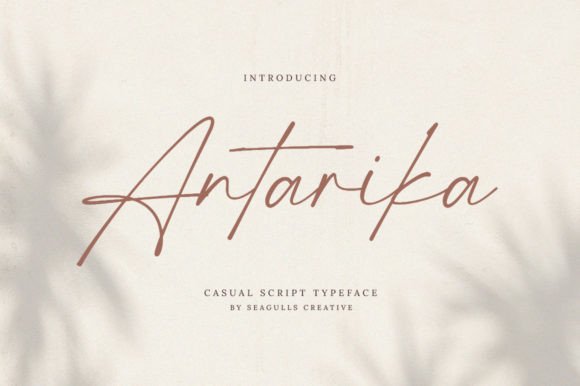
Dive into the world of allure and sophistication with Antarika Font, a captivating script typeface that dances across your designs with a captivating rhythm of smooth curves, elegant strokes, and a striking interplay of thick and thin lines. Step into the spotlight and unveil your creative vision with this font, an exquisite gem waiting to be discovered.
Picture your brand adorned with the unmistakable charm of Antarika Font. Its flowing lines whisper stories of timeless elegance, drawing the eyes and captivating hearts. Whether you're crafting signature logos, building a cohesive brand identity, adding a touch of exclusivity to your watermark, or capturing the essence of love in wedding invitations, Antarika Font stands as your steadfast companion.
Within the realm of studio photography, Antarika Font transforms ordinary images into breathtaking works of art. Its flowing strokes embrace the curves and contours of your subjects, highlighting their beauty and drawing the viewer into their captivating gaze. Unleash your creativity and watch as your photographs take on a new dimension of artistry and emotion.
With Antarika Font as your ally, advertisements and product designs become more than mere promotions; they transform into captivating narratives that allure and engage audiences. Each letter dances across the screen or packaging, inviting customers to embark on an unforgettable journey. Let your products speak volumes with the enchanting voice of Antarika Font.
Embrace the power of social media and let Antarika Font elevate your posts to a league of their own. Craft captivating captions and headlines that dance off the screen, captivating your followers with their eloquence and charm. Watch as your engagement soars, and your brand becomes a beacon of inspiration within the digital realm.
Step into a world where creativity knows no bounds, where words come alive, and designs captivate. Antarika Font awaits you, ready to unlock the full potential of your artistic expression. With every stroke of this remarkable typeface, you'll discover new avenues of creativity, transforming your designs into masterpieces that leave an indelible mark.
Dare to be different, dare to be bold, and embrace the artistry of Antarika Font. Let your designs speak louder than words and unveil a world where elegance and sophistication reign supreme. Let Antarika Font be your muse, your guiding light, and your unwavering companion on this extraordinary creative journey.